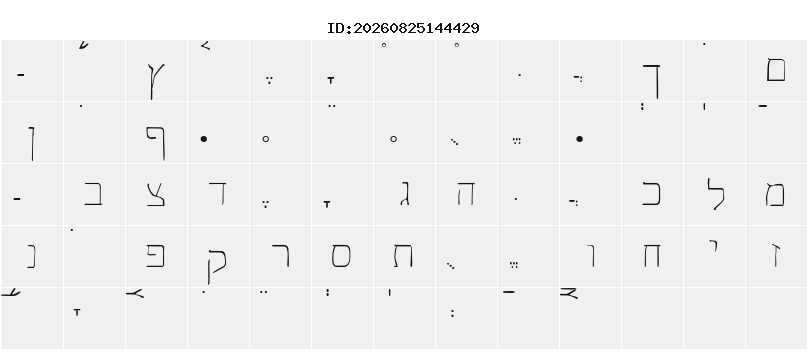
SPDamascus Preview
• Font Name: SPDamascus
• Full Font Name: SPDamascus
About SPDamascus.ttf
SPDamascus.ttf is a modern, elegant sans-serif font designed for ultimate readability and visual harmony. Perfect for branding, headlines, web design, and print materials.